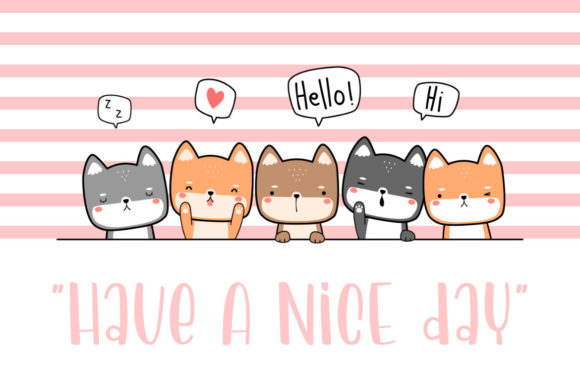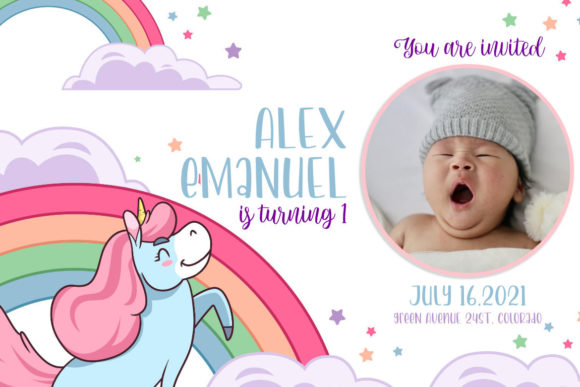
Hello Cactus Font
Hello Cactus is a fun and friendly display font. Whether you use it for cartoon related designs, children games or just any creation that requires a lovely touch, this font will be an amazing choice.